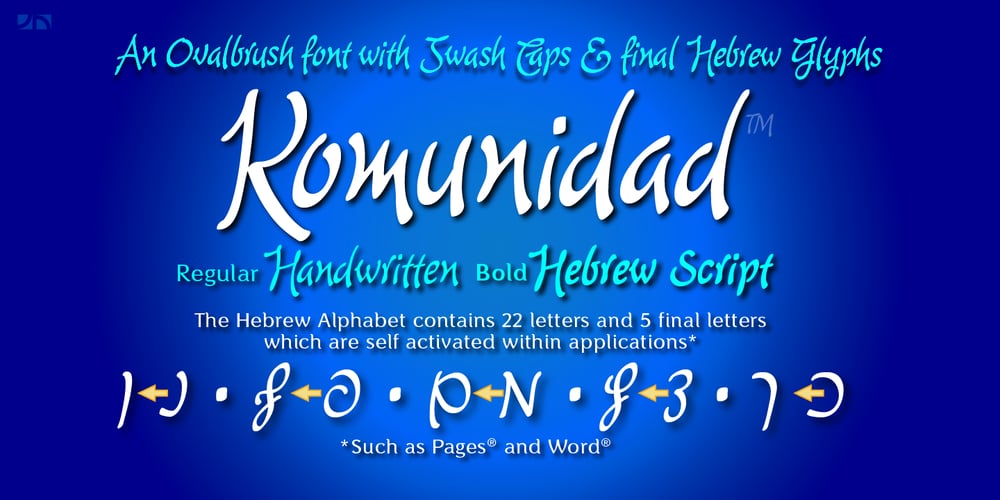
Komunidad Hebrew Script Font Family was designed by John Nahmias and published by Jonahfonts. Komunidad Hebrew Script contains 2 styles and family package options. Komunidad is the Hebrew version of ”Quintana Light”. Suitable for logos and packaging statements. Invoking the OpenType / CONTEXTUAL variant produces the word terminals for all lower-case letterforms as well as diacritic letters. Final Hebrew Glyphs are also added. This can be done individually for each letter as well. Komunidad also contain alternative Swashes and TabOldstyle numerals. (OpenType-Variants may only be accessible via OpenType-aware applications.)